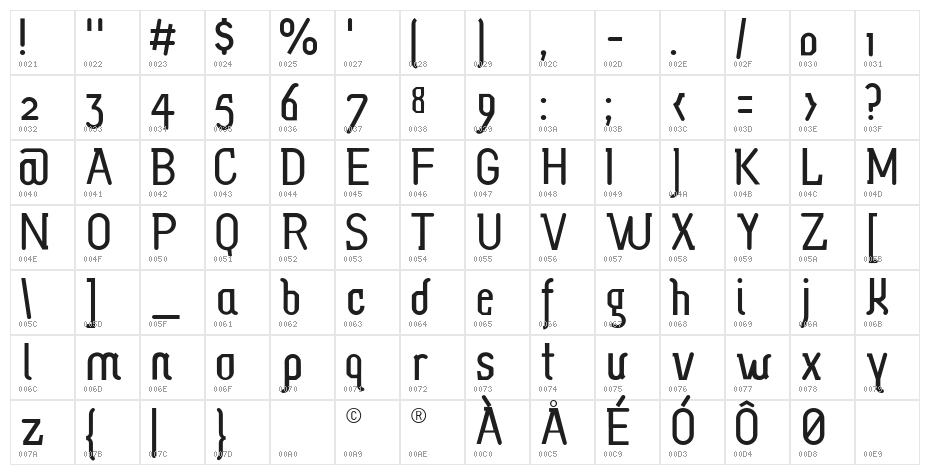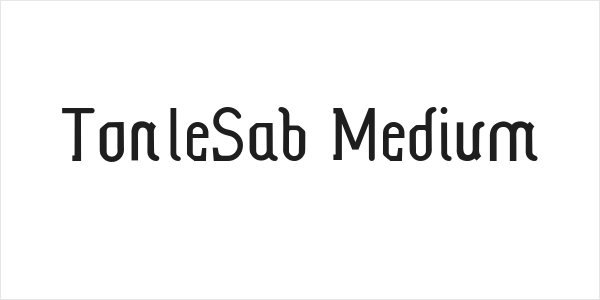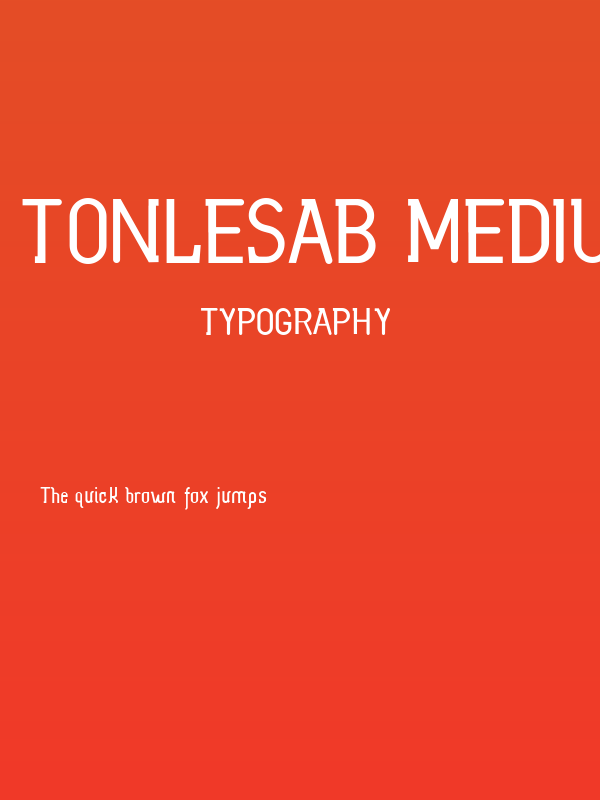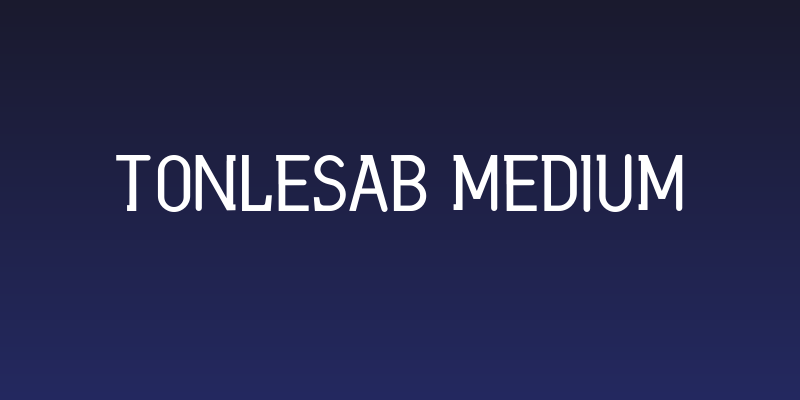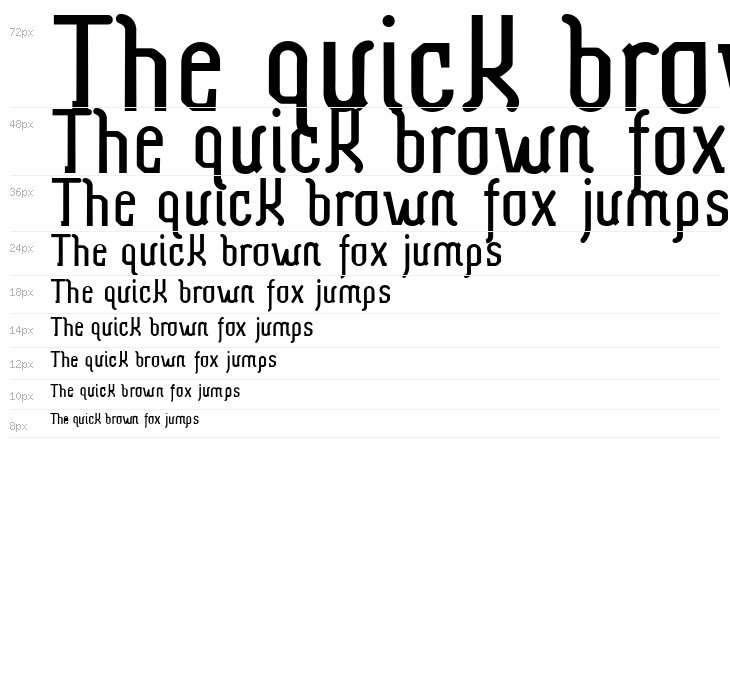
TonleSab Medium Font
TonleSab Medium Description
This font features a modern and geometric design with clean lines and a structured appearance. The uppercase letters are bold and uniform, with a slight curvature that adds a touch of elegance. The lowercase letters maintain a consistent style, with rounded edges that soften the overall look. Numbers are clear and legible, designed to complement the alphabet with similar geometric shapes. Special characters are distinct and well-integrated, ensuring versatility in various applications. The font's design is both functional and aesthetically pleasing, making it suitable for a wide range of uses.
| Use Case | Headlines, Logos, Digital Media |
| Proposed Projects | Ideal for branding, advertising, digital media, and editorial design projects. |